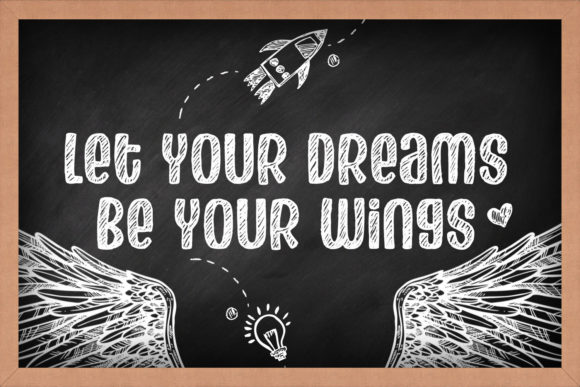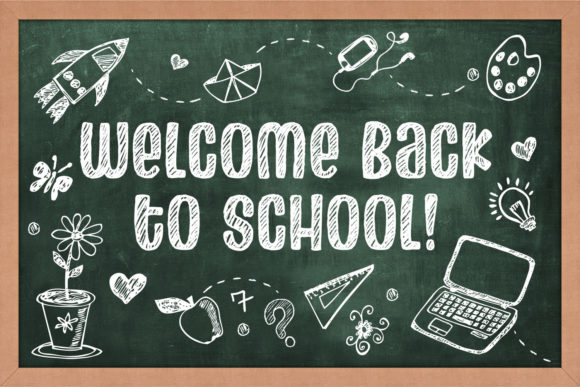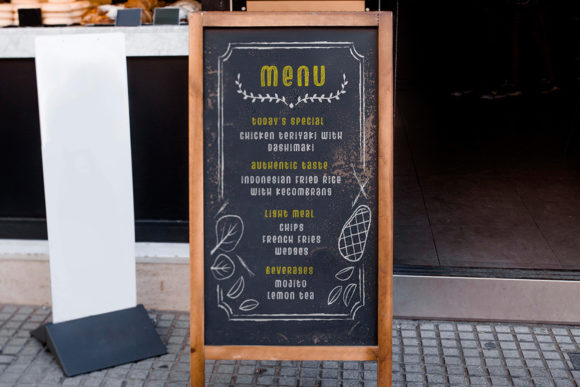
Chalk Dream Font
Chalk Dream is a bold, fun and useful display font. Whether you use it for cartoon related designs, children games or just any creation that requires a lovely touch, this font will be an amazing choice.